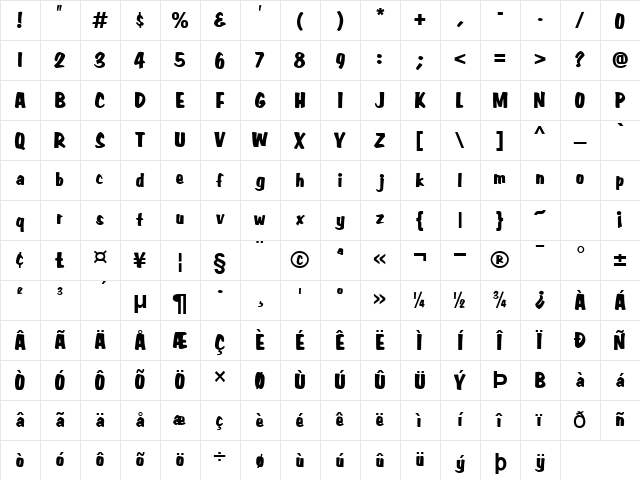
Big Nib Normal Free Font
Big Nib Normal
Big Nib Family
Design Context for Big Nib
Big Nib is a composed and adaptable typeface that performs quietly and consistently across a wide range of design contexts.